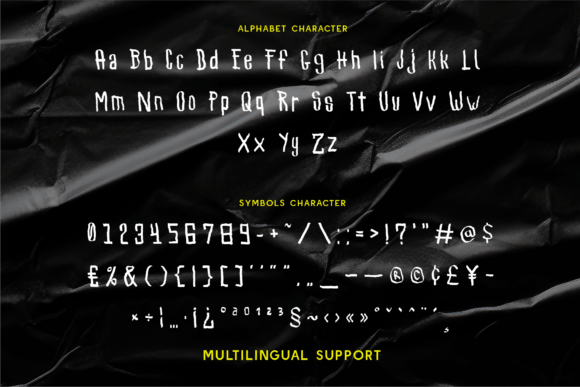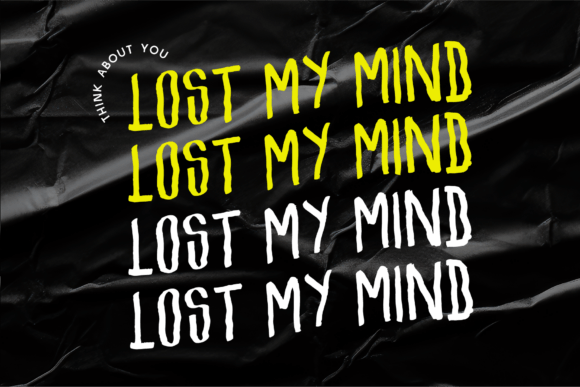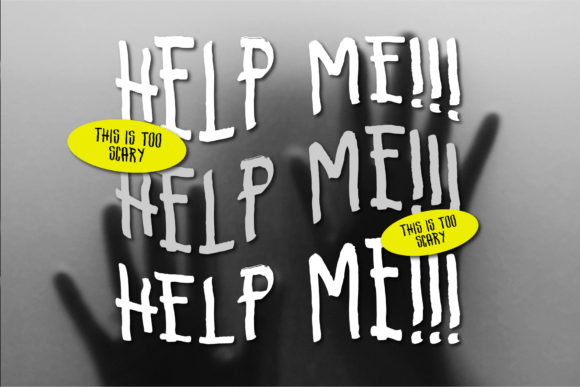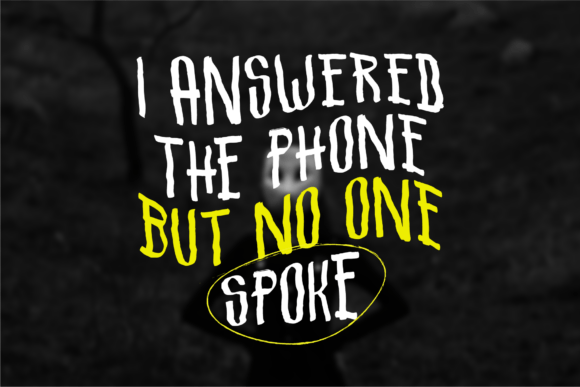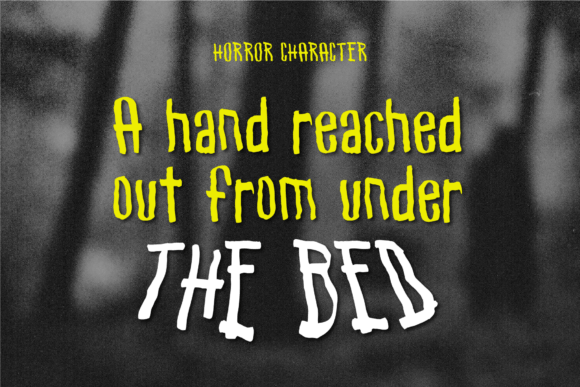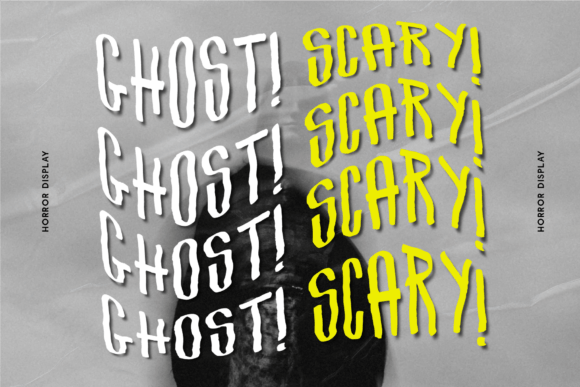
Dreadmarko Font: Unleash the Spooky Vibes in Your Designs
Are you looking for a font that can add a sense of mystery and suspense to your designs? Do you want to create a eerie and intriguing atmosphere in your horror movie posters, haunted house invitations, or dark-themed branding? Look no further than Dreadmarko, a unique handwritten font with a raw, grunge-inspired aesthetic.
The Aesthetic of Dreadmarko
Dreadmarko is a font that embodies the spirit of grunge, with its irregular, slightly distressed letterforms that give it a naturally spooky vibe. The font’s raw, unfinished look makes it perfect for designers who want to add a touch of unease to their designs without overwhelming them. The subtle distressing and unpredictable glyph shapes of Dreadmarko make it stand out, while still maintaining a balance that feels artistic and eye-catching.
Dreadmarko Font Example
Perfect for Horror and Dark-Themed Designs
Dreadmarko is specifically designed to add a sense of mystery and suspense to your designs. Its eerie and intriguing aesthetic makes it perfect for horror movie posters, haunted house invitations, and dark-themed branding. The font’s spooky vibe is sure to grab the attention of your audience and leave a lasting impression.
Key Features of Dreadmarko
• Unique Handwritten Aesthetic: Dreadmarko has a one-of-a-kind, handwritten look that sets it apart from other fonts.
• Raw, Grunge-Inspired Design: The font’s distressed letterforms give it a raw, unfinished look that’s perfect for adding a touch of unease to your designs.
• Irregular Letterforms: Dreadmarko’s irregular letterforms add to its spooky vibe, making it perfect for horror and dark-themed designs.
• Subtle Distressing: The font’s subtle distressing gives it a naturally worn look that’s both artistic and eye-catching.
• Unpredictable Glyph Shapes: Dreadmarko’s unpredictable glyph shapes make it stand out, while still maintaining a balance that feels artistic and eye-catching.
How to Use Dreadmarko in Your Designs
Dreadmarko is a versatile font that can be used in a variety of design projects. Here are a few ideas to get you started:
• Horror Movie Posters: Use Dreadmarko to create eye-catching horror movie posters that grab the attention of your audience.
• Haunted House Invitations: Add a touch of spooky elegance to your haunted house invitations with Dreadmarko.
• Dark-Themed Branding: Use Dreadmarko to create a bold, eye-catching brand identity for your dark-themed business or product.
• Halloween-themed Designs: Dreadmarko is perfect for Halloween-themed designs, including party invitations, decorations, and more.
Why Choose Dreadmarko?
So why choose Dreadmarko for your design projects? Here are just a few reasons:
• Unique Aesthetic: Dreadmarko has a one-of-a-kind aesthetic that’s sure to grab the attention of your audience.
• Versatility: The font can be used in a variety of design projects, from horror movie posters to dark-themed branding.
• High-Quality Design: The font is designed to high standards, ensuring that it looks great in any design project.
In conclusion, Dreadmarko is a unique and versatile font that’s perfect for designers who want to add a sense of mystery and suspense to their designs. Its raw, grunge-inspired aesthetic and irregular letterforms make it stand out, while its subtle distressing and unpredictable glyph shapes make it artistic and eye-catching. Whether you’re working on horror movie posters, haunted house invitations, or dark-themed branding, Dreadmarko is the perfect choice.